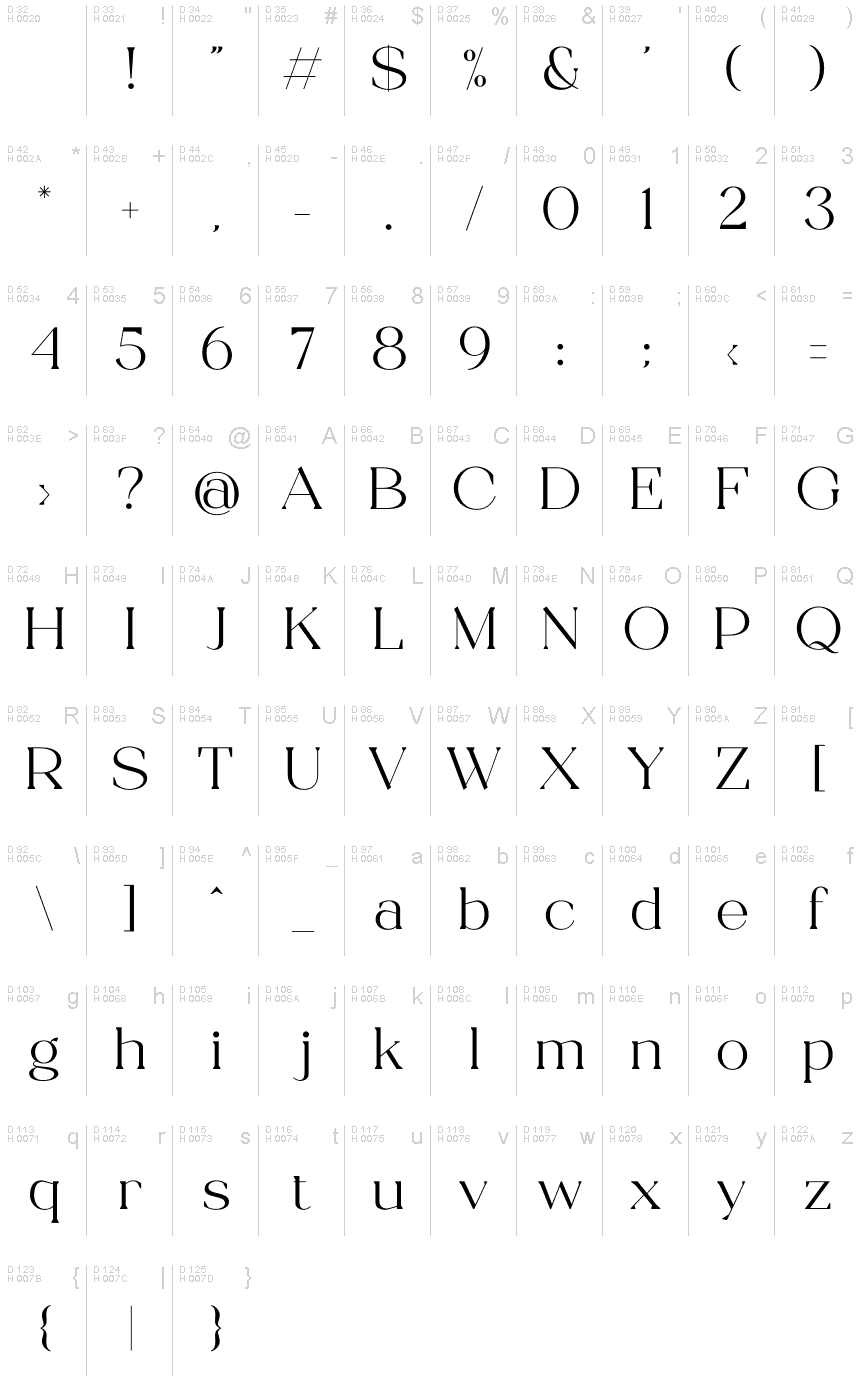
Giliran
Giliran, the creation of renowned designer BrandSemut, is a modern serif font that exudes elegance and sophistication. With its semi-light weight, this versatile typeface lends itself to a range of projects.
From sleek branding materials for high-end fashion boutiques to refined editorial layouts for lifestyle magazines, Giliran adds a touch of contemporary flair while maintaining an air of timeless class. Its clean lines and balanced proportions make it equally suitable for elegant wedding invitations or professional corporate presentations.
Let Giliran be your go-to font for any project that calls for an effortlessly stylish touch.